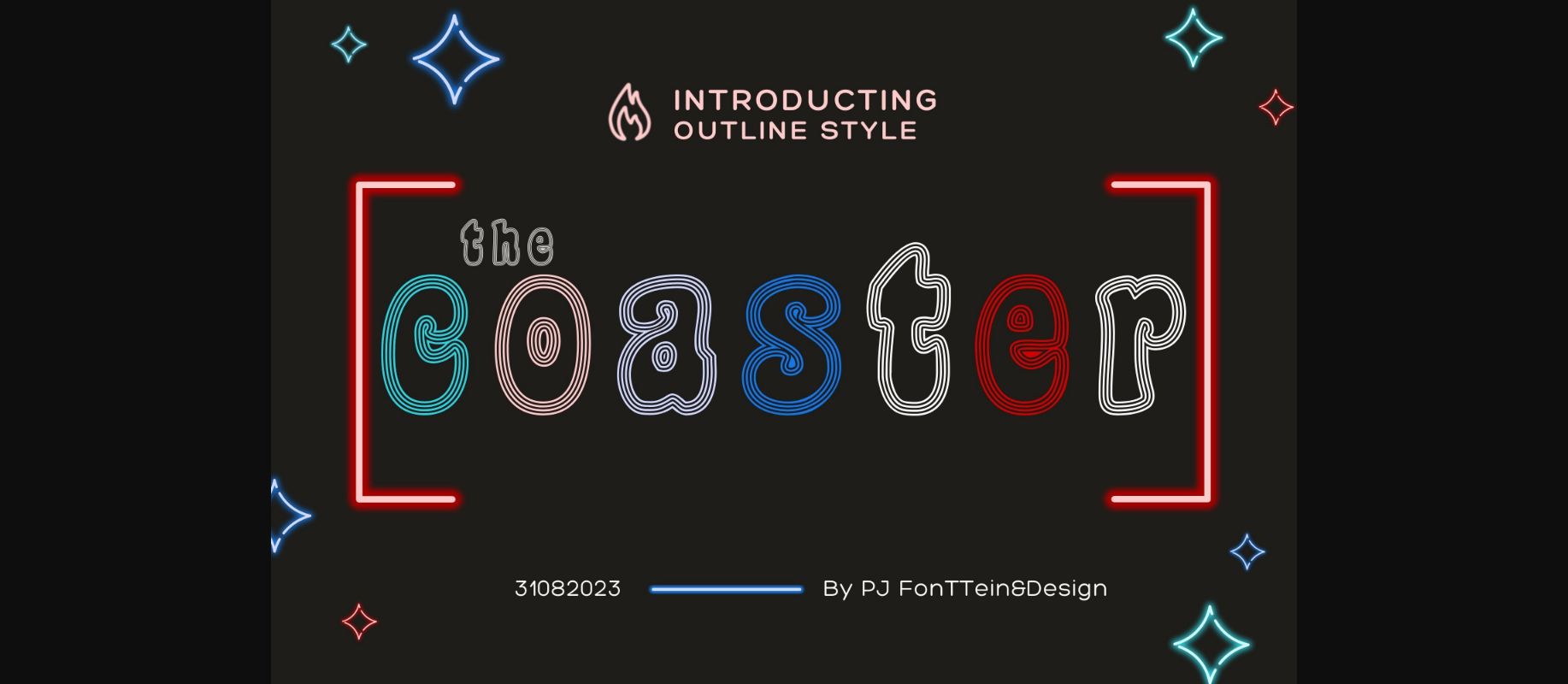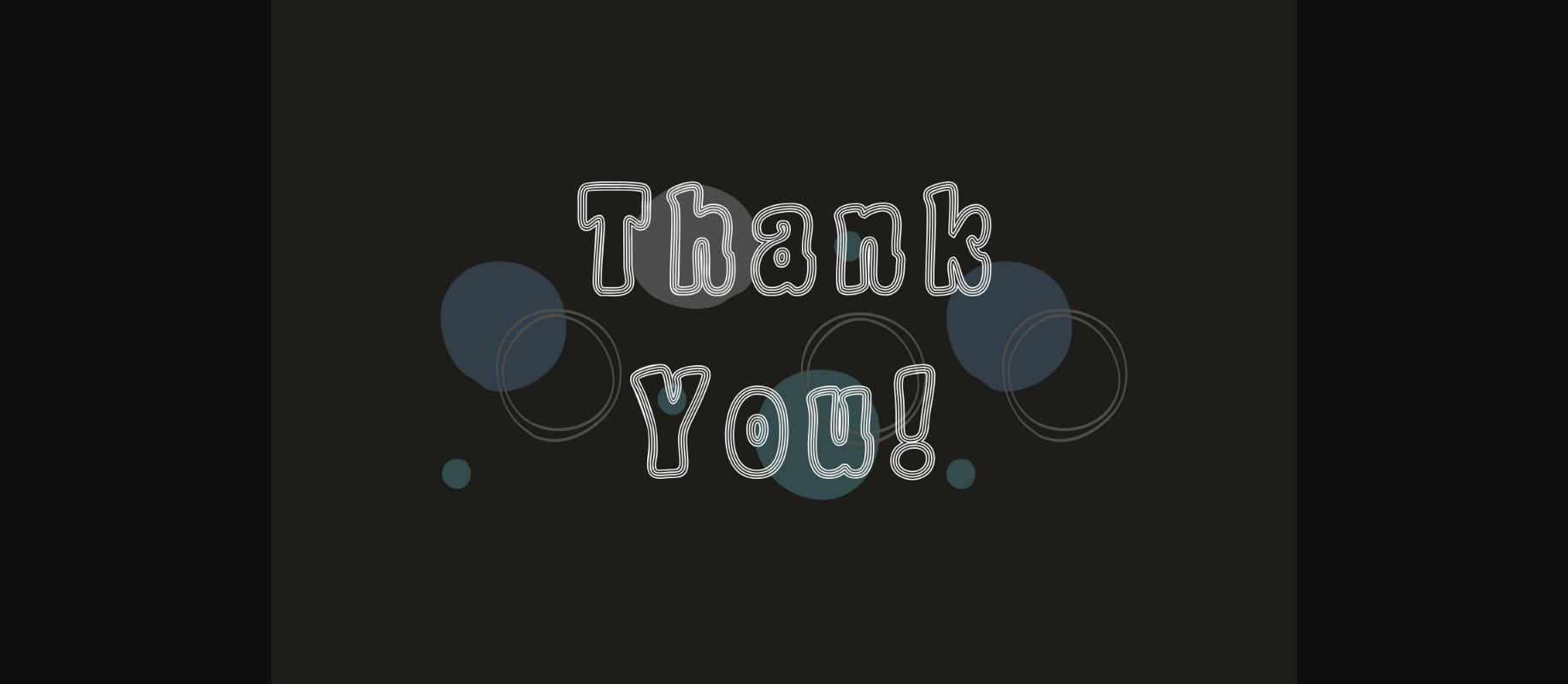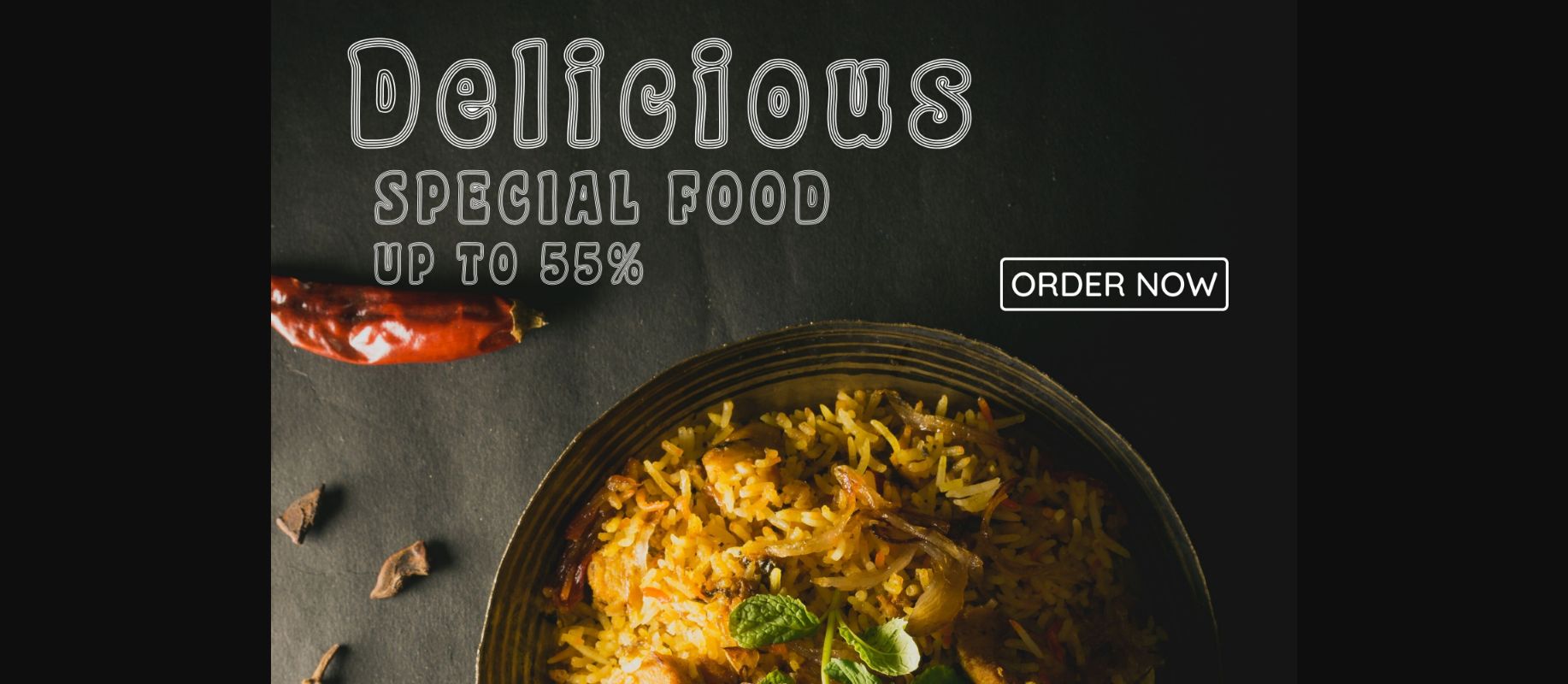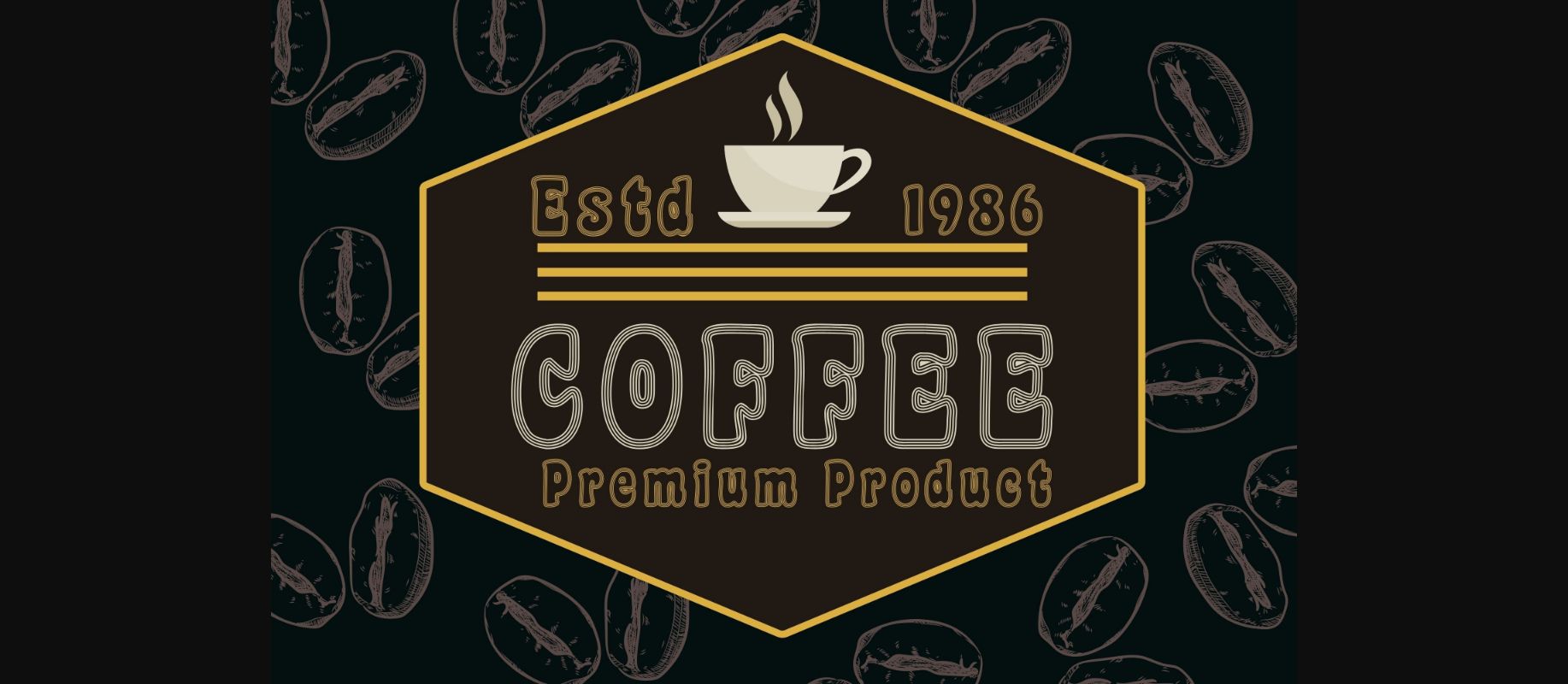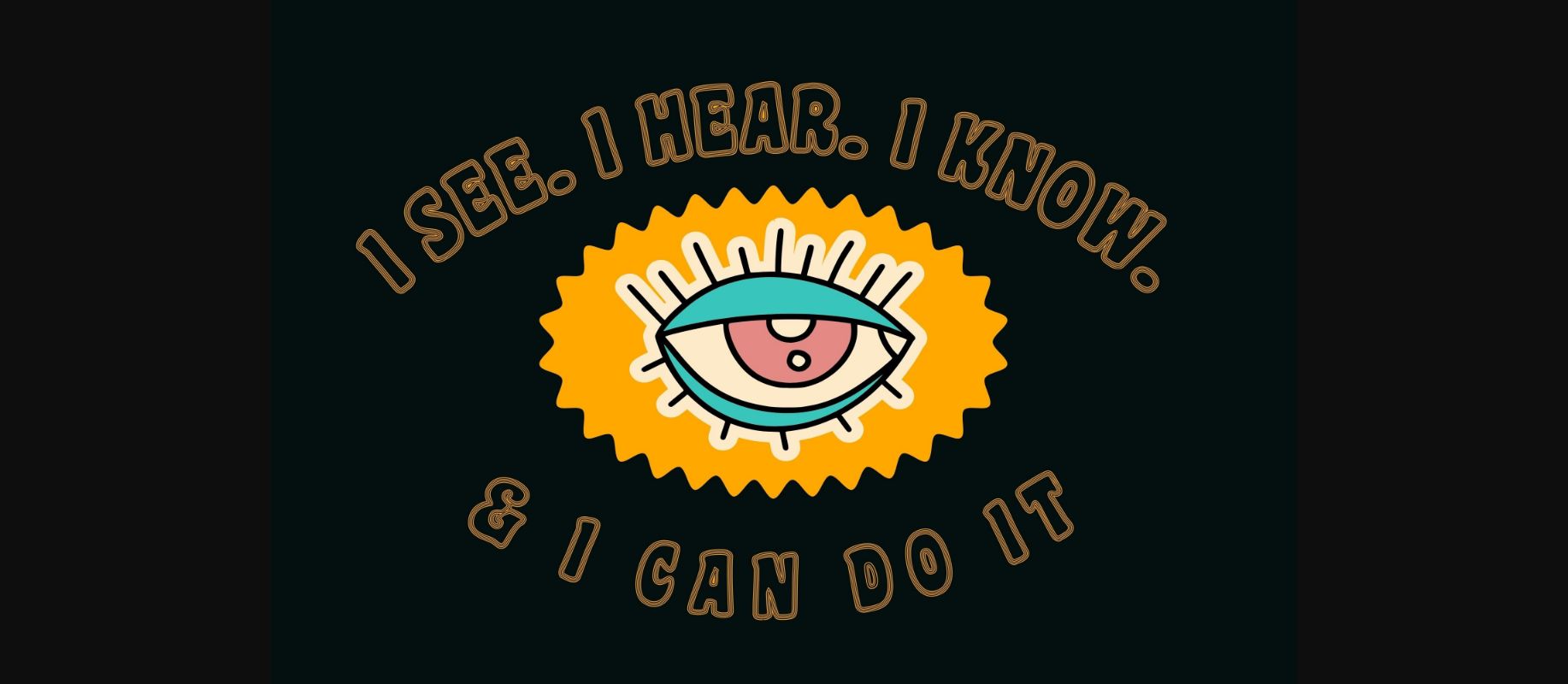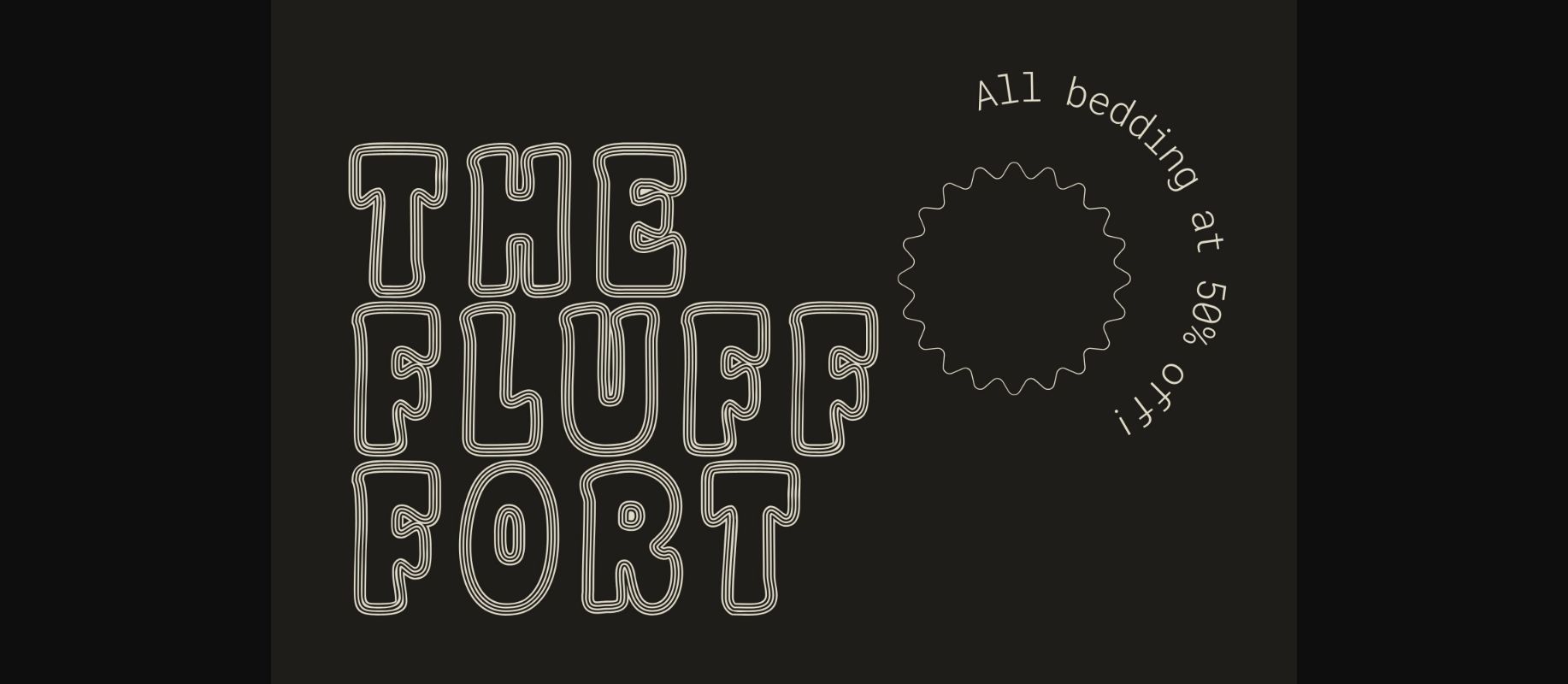
The Coaster Font
About The Coaster Font
The Coaster is a multiline decorative font that functions excellently for identification logos, posters, and 3D works.